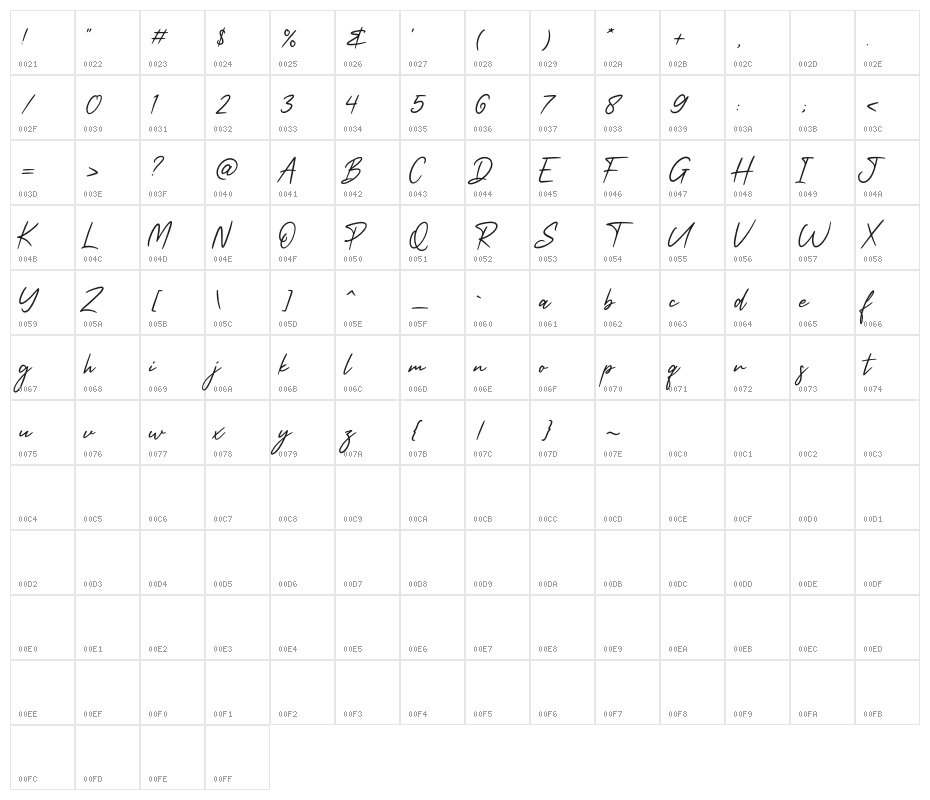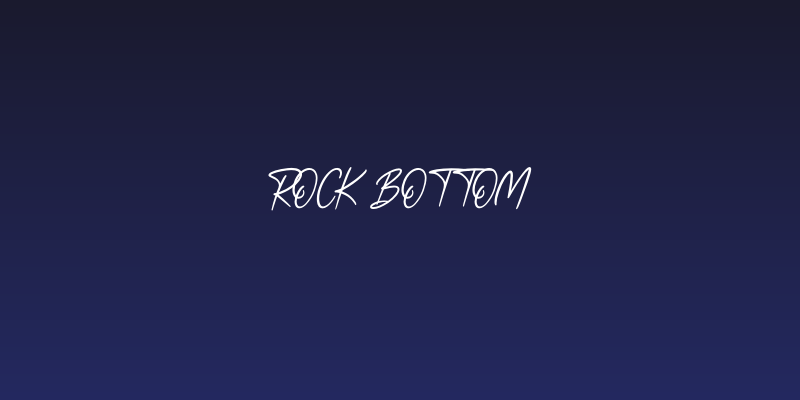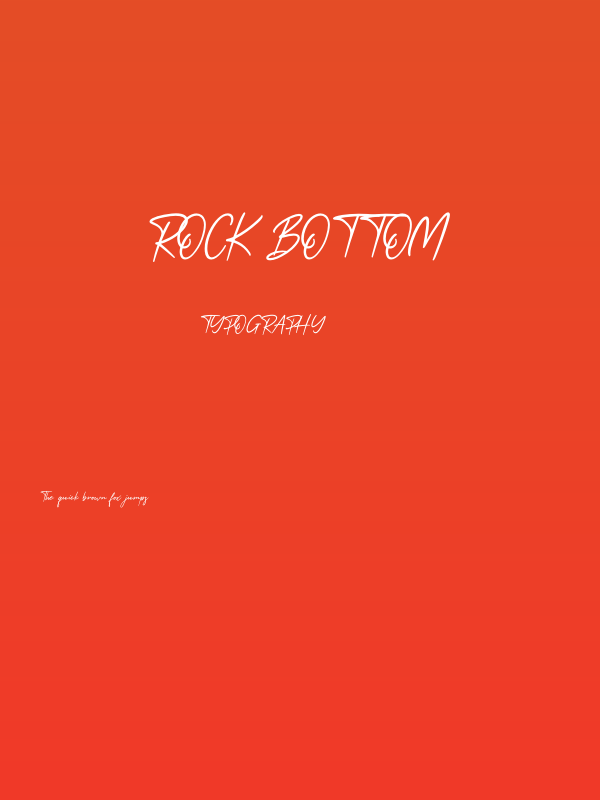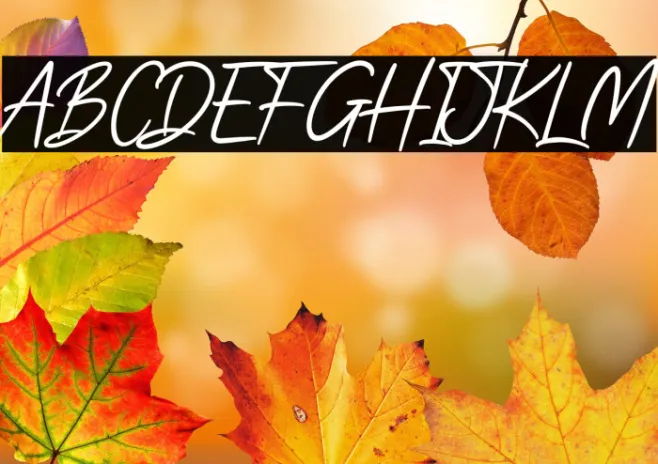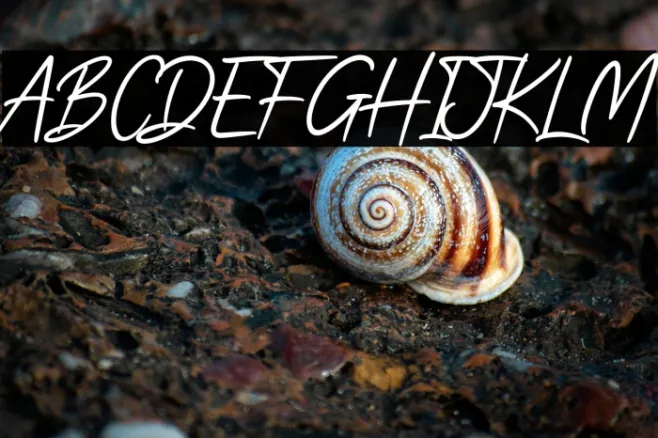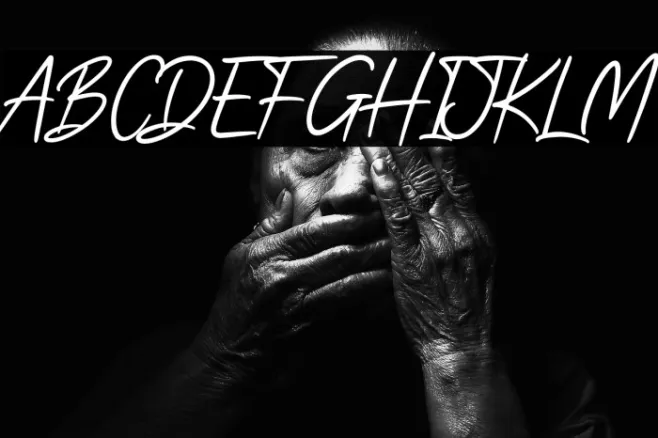
Rock Bottom Font
Rock Bottom Description
This font exudes a dynamic and fluid style, characterized by its cursive, handwritten appearance. The letters are elegantly connected, giving it a seamless flow that mimics natural handwriting. The uppercase letters are bold and slightly slanted, while the lowercase letters maintain a consistent, graceful curve. The numbers and special characters follow the same fluidity, ensuring a cohesive look across all glyphs. The strokes are smooth and continuous, with a medium contrast that enhances readability without sacrificing style. This font is perfect for projects that require a personal touch, such as invitations, greeting cards, or branding materials.
| Proposed Projects | Ideal for invitations, greeting cards, personal branding, and artistic projects. |